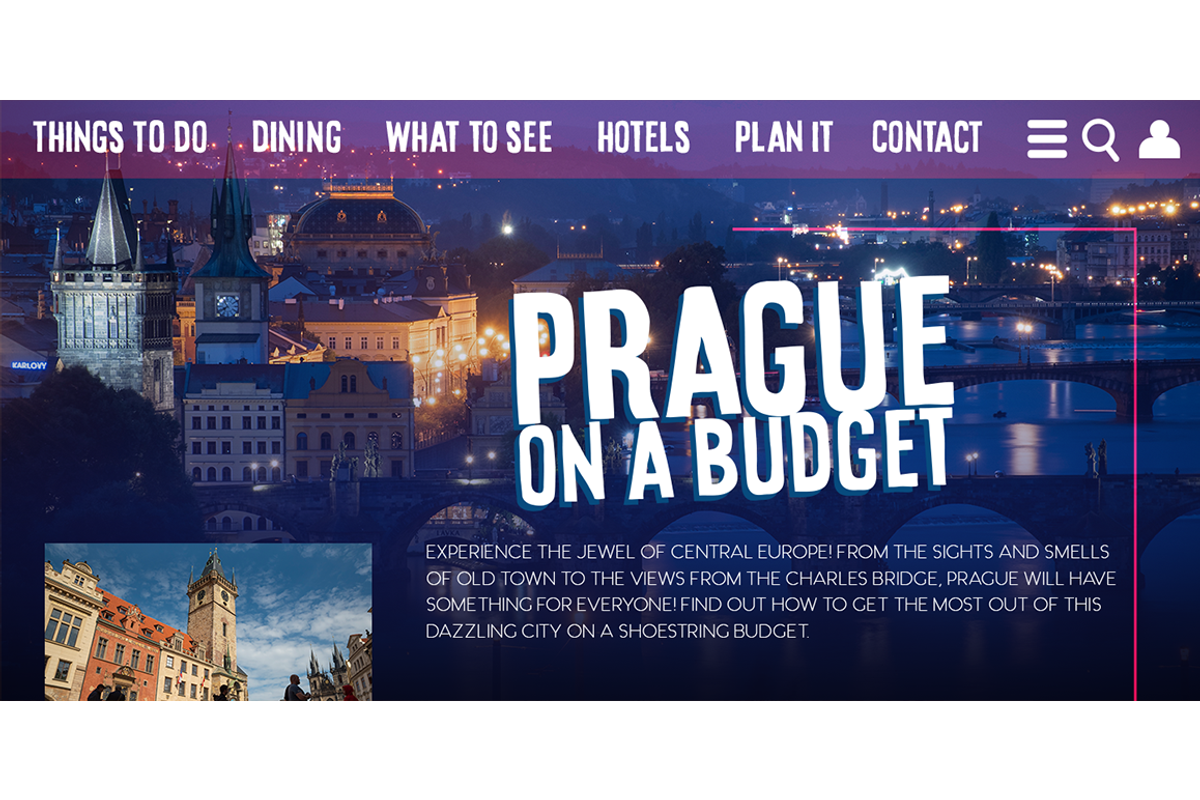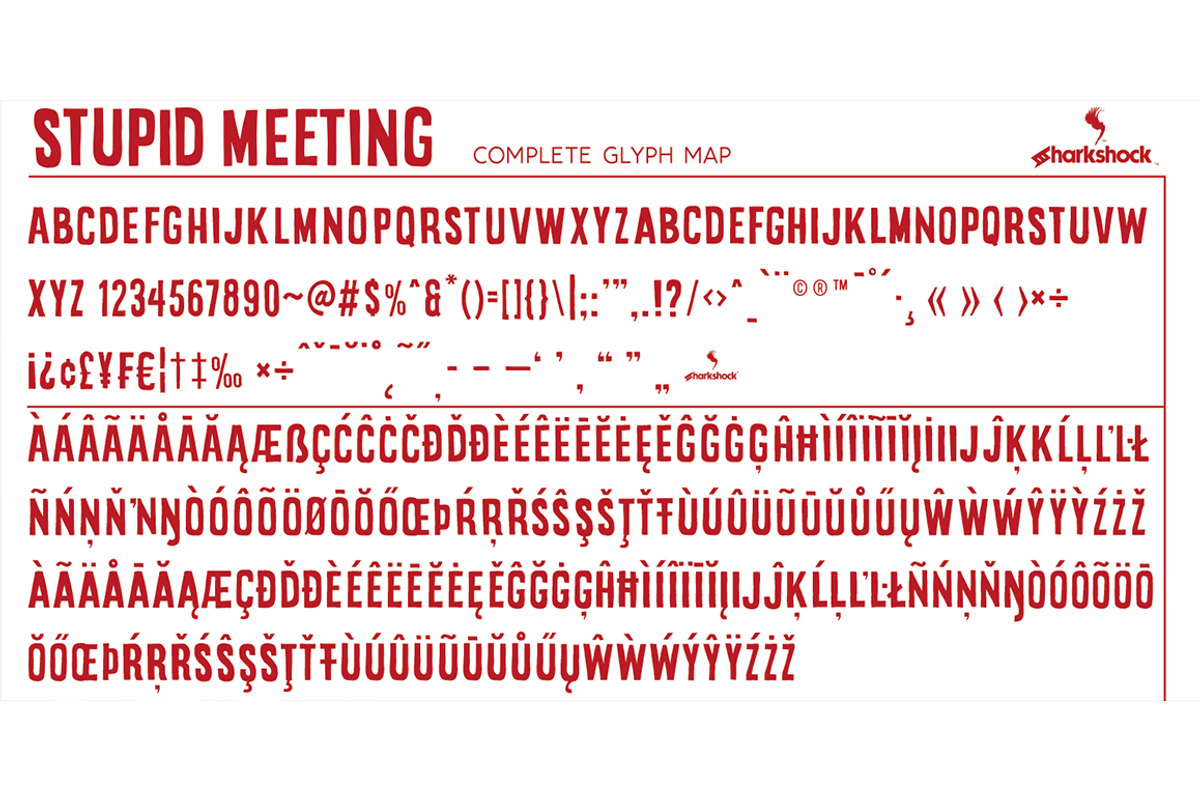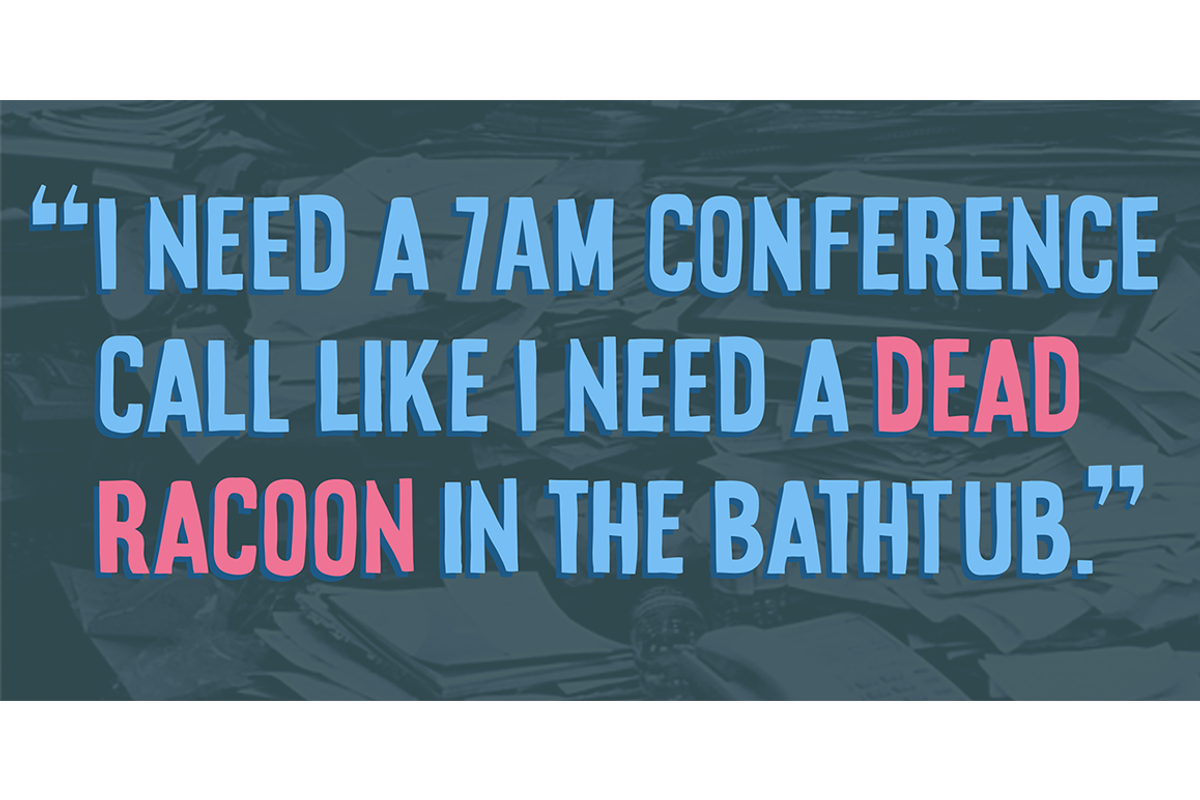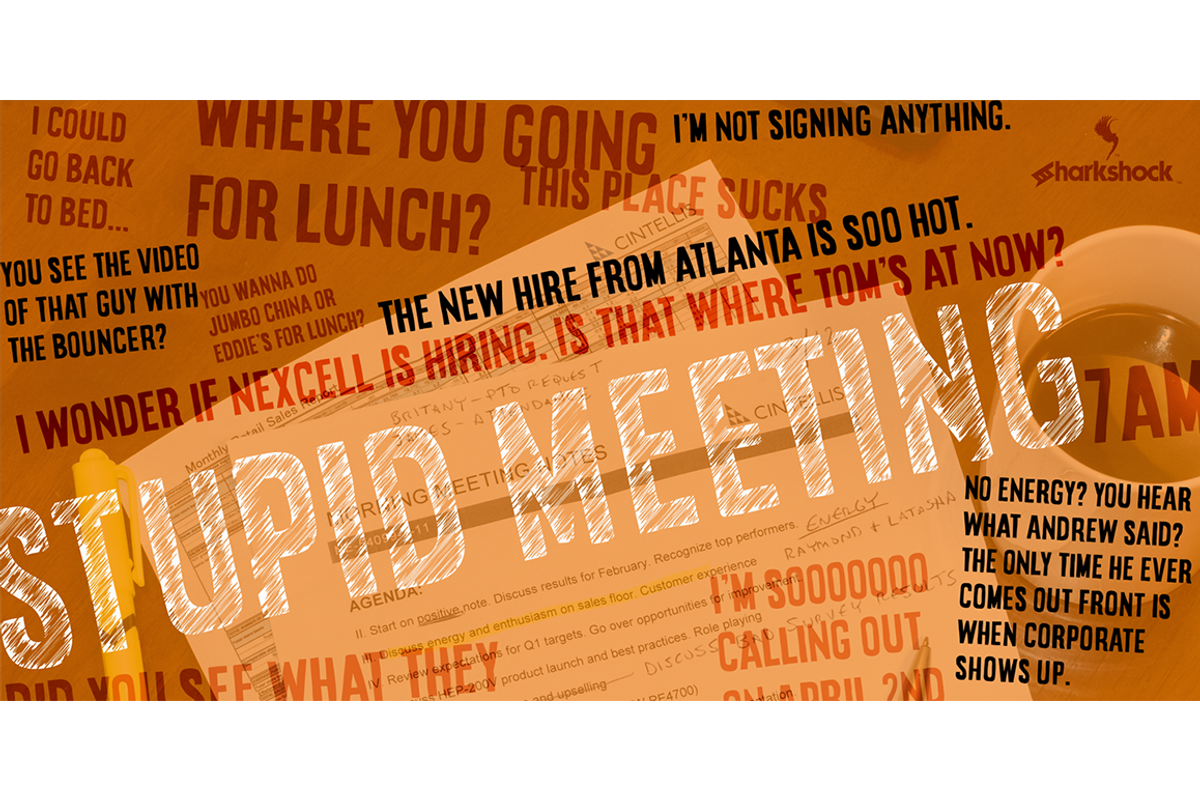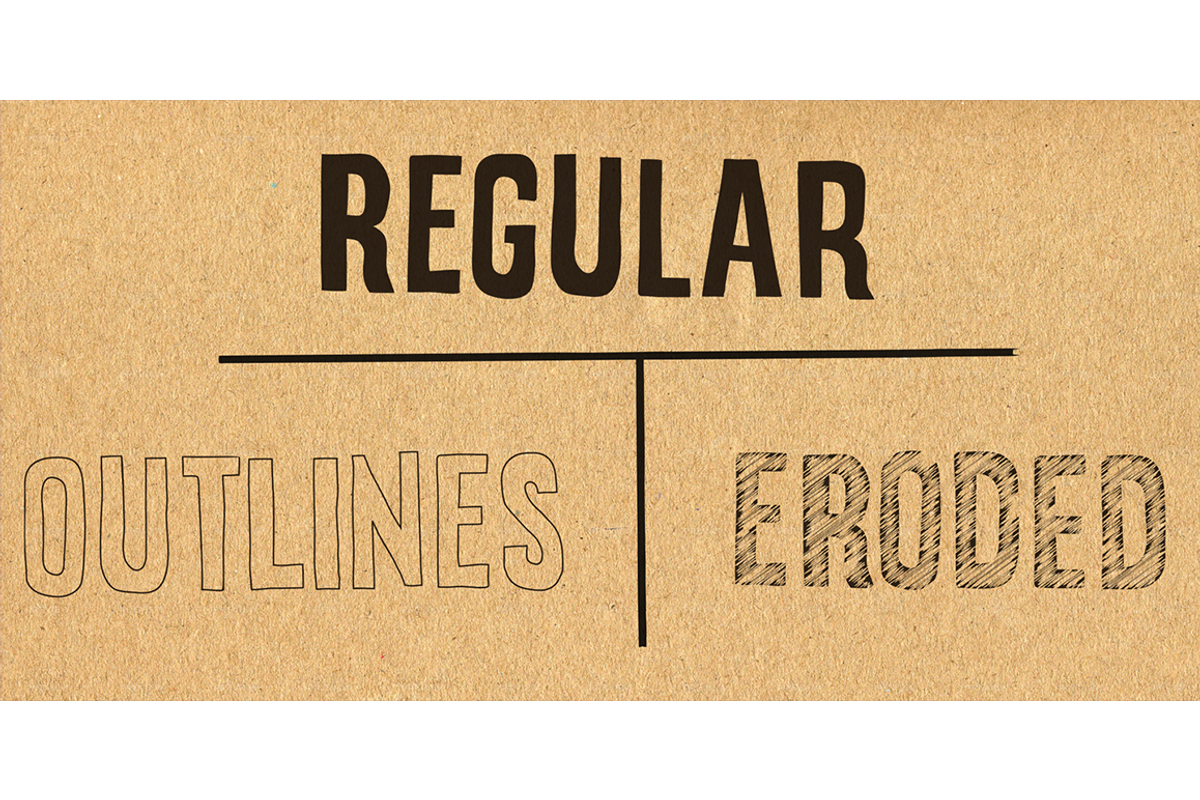
Stupid Meeting
Say hello to Stupid Meeting; an all caps display sans that didn’t quite catch its 8 hours of sleep! A lot of attitude went into designing this corporate inspired masterpiece. From a distance it looks pretty normal but the closer you get, the worse it appears. This 3 member family features basic/advanced Latin, diacritics, punctuation, and kerning. Use Stupid Meeting for a kids’ book, packaging, or logo. Try the Eroded version for retail posters, social media, or toys. Check the glyph map to make sure the characters you’re interested in are supported.